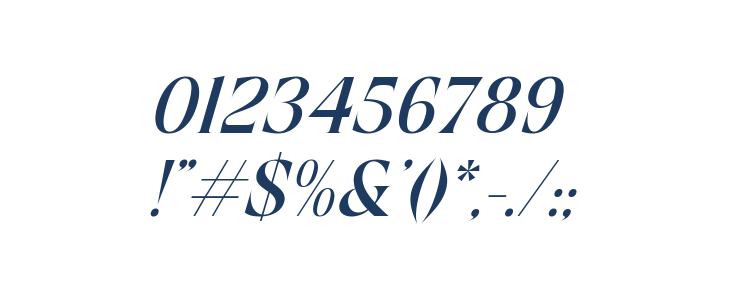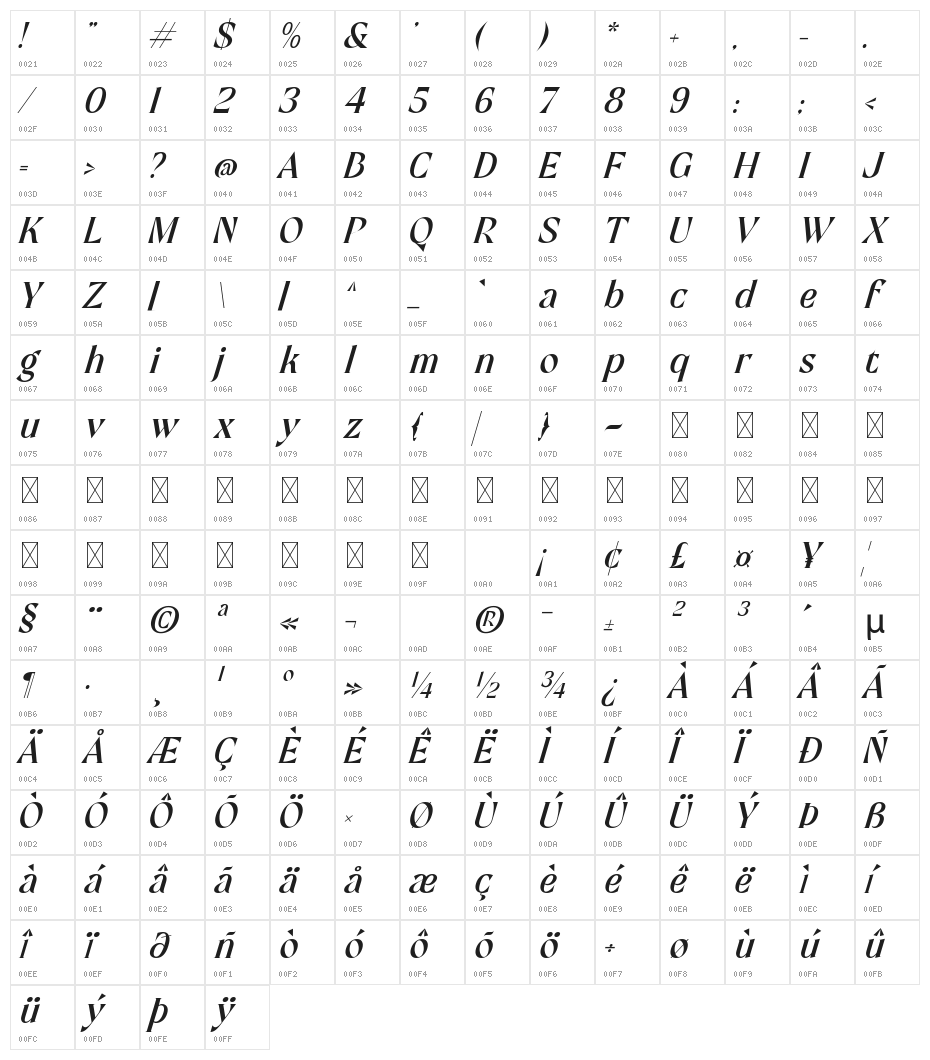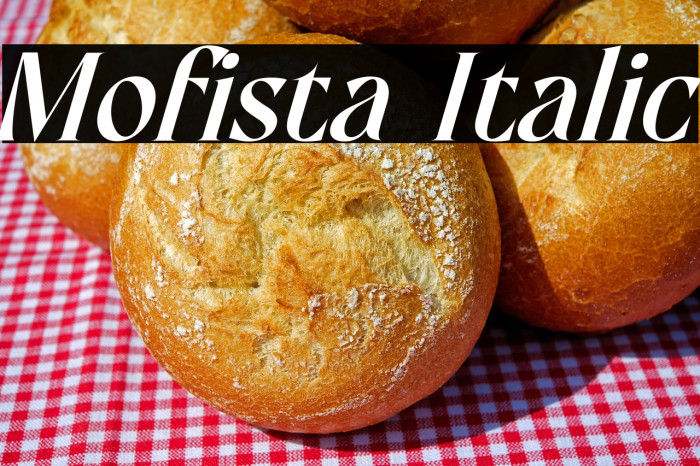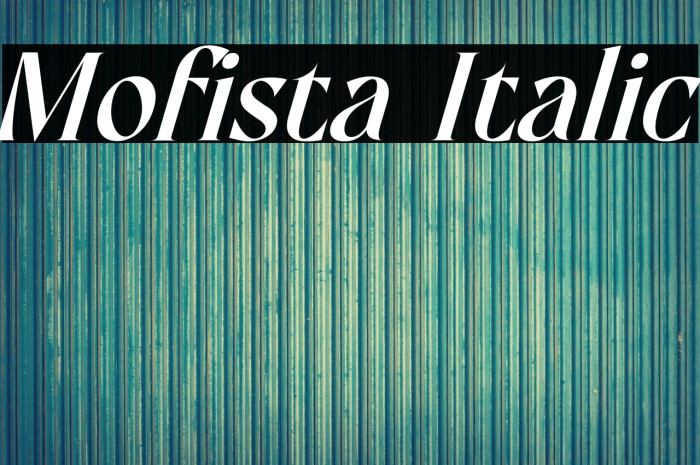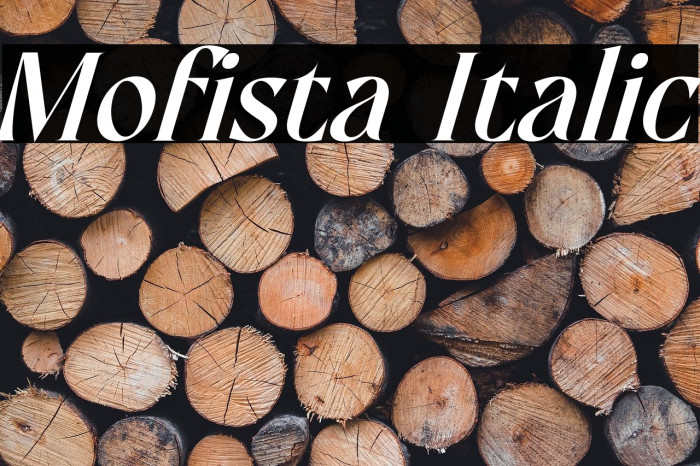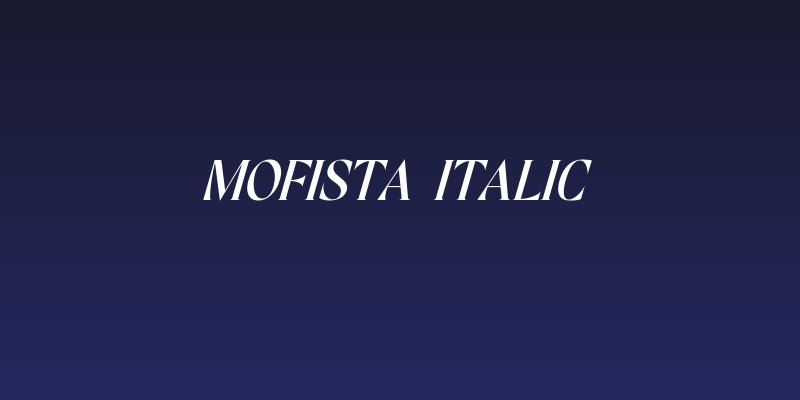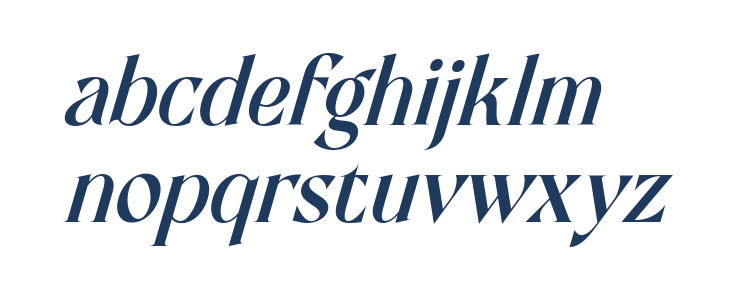
Mofista Italic Font
Mofista Italic Description
This font exhibits a dynamic and elegant italic style, characterized by its slanted and flowing letterforms. The strokes are smooth and slightly condensed, giving it a sophisticated and refined appearance. The uppercase letters are bold and commanding, while the lowercase letters maintain a graceful and fluid form. The numerals are consistent with the overall style, offering clarity and balance. Special characters are well-integrated, enhancing the font's versatility. The font's high contrast in stroke thickness adds to its dramatic and eye-catching appeal, making it suitable for various design applications.